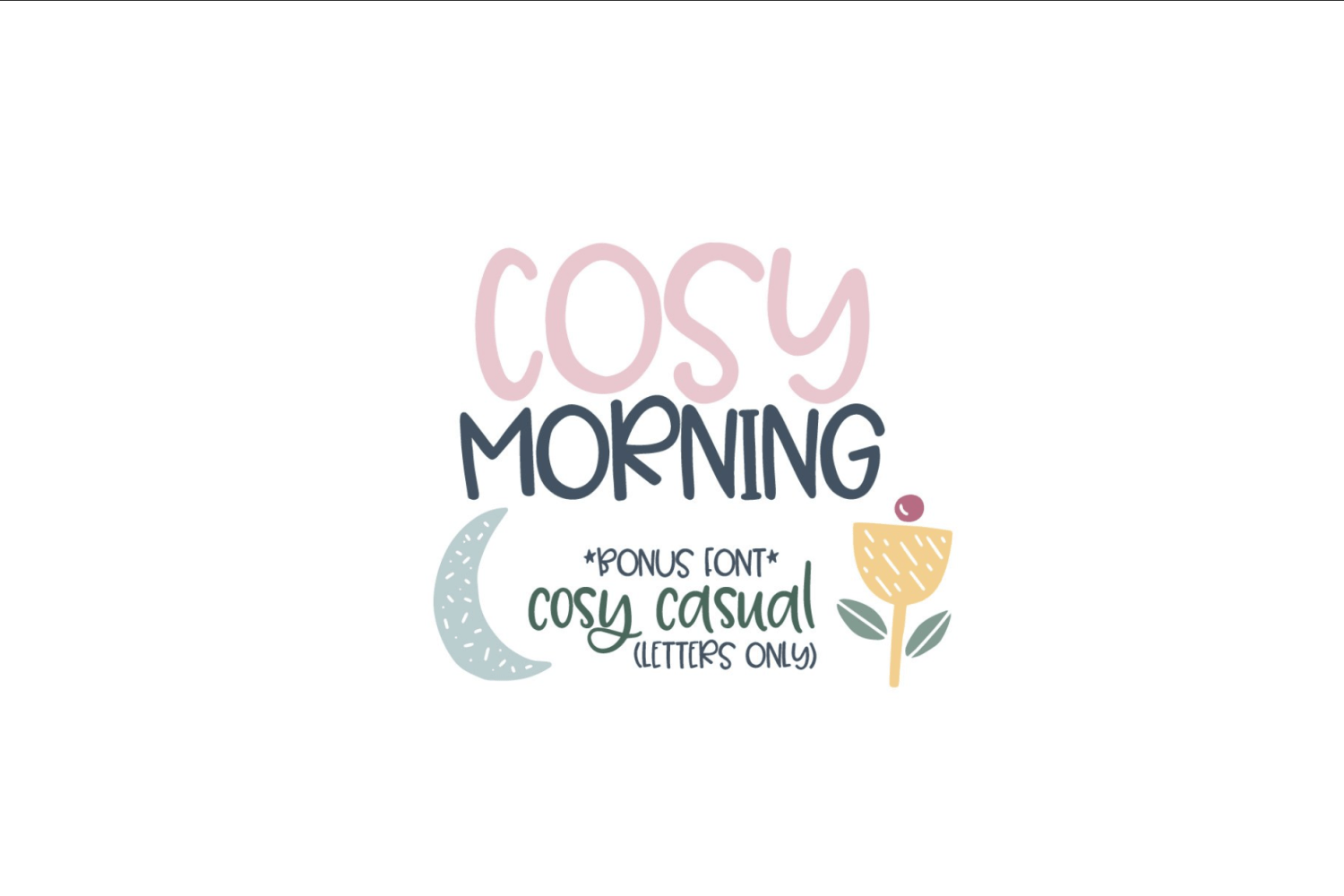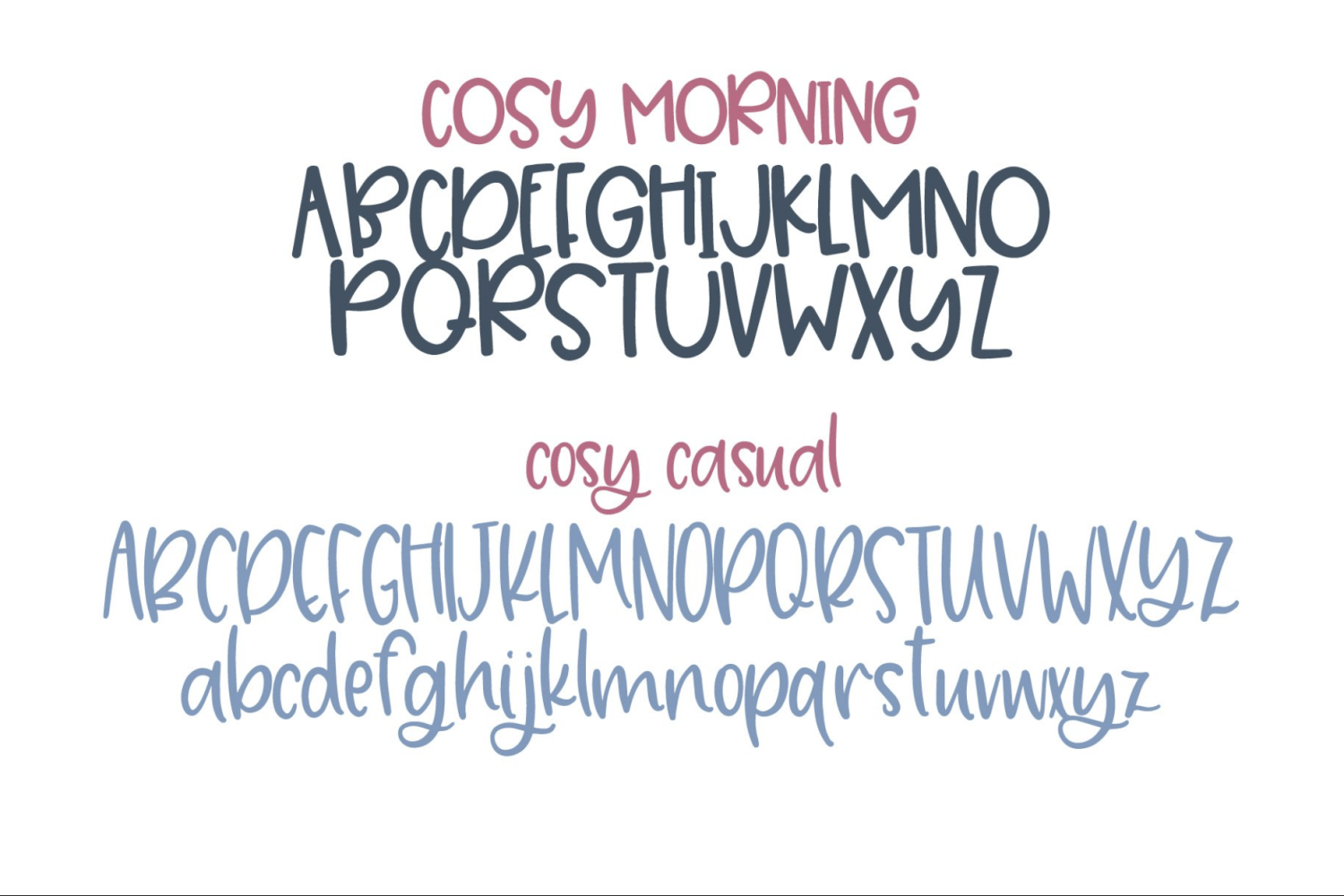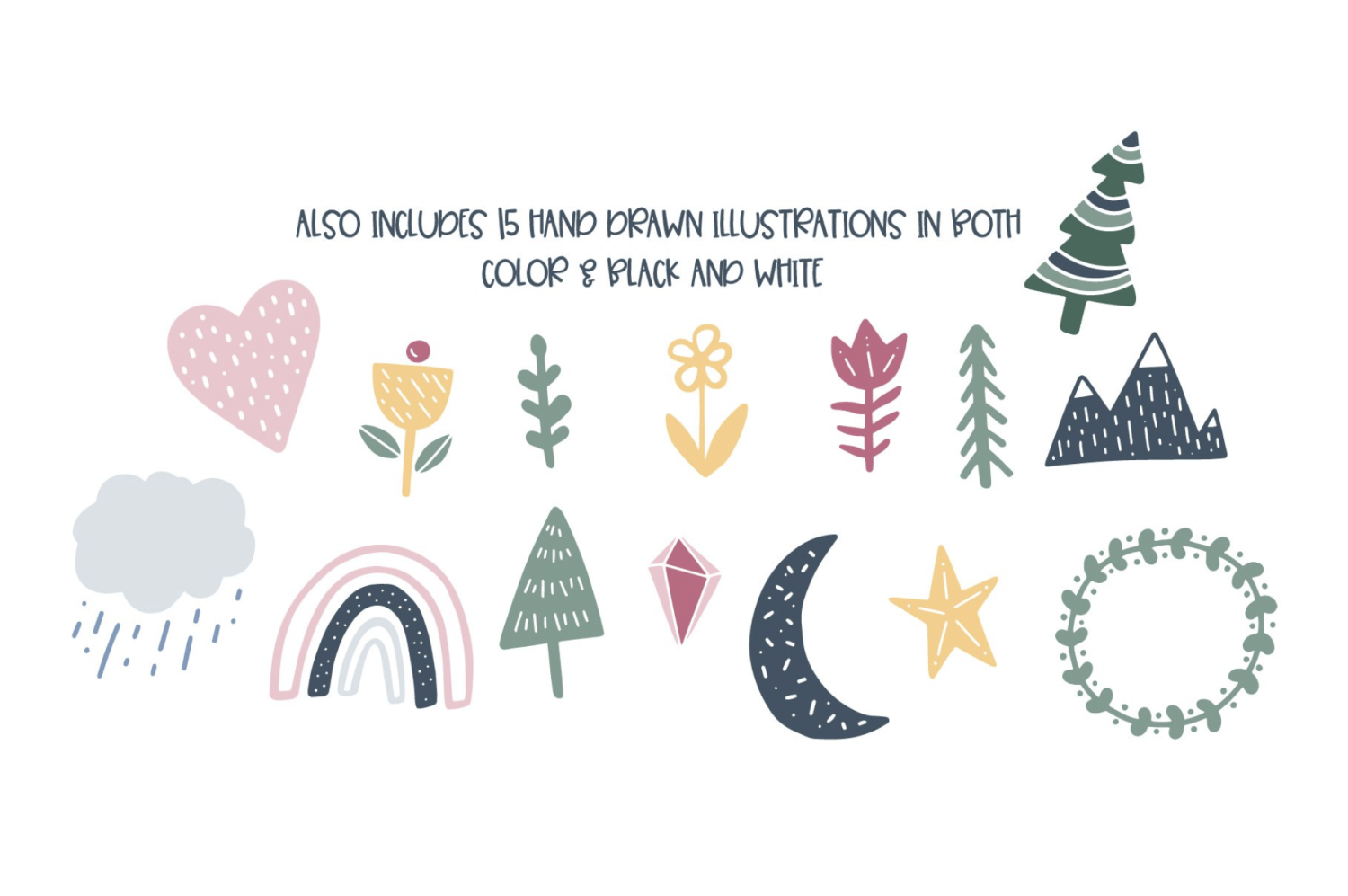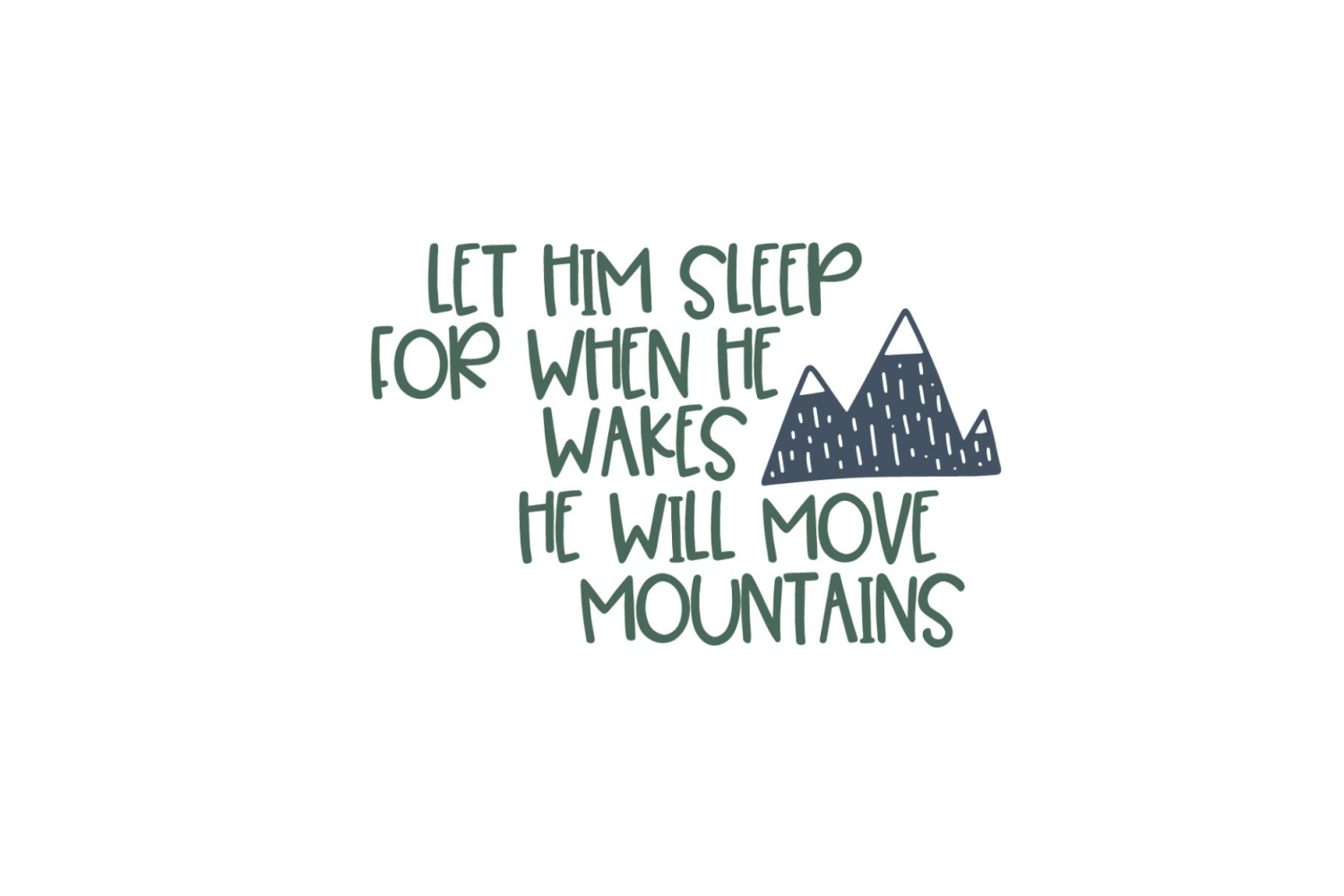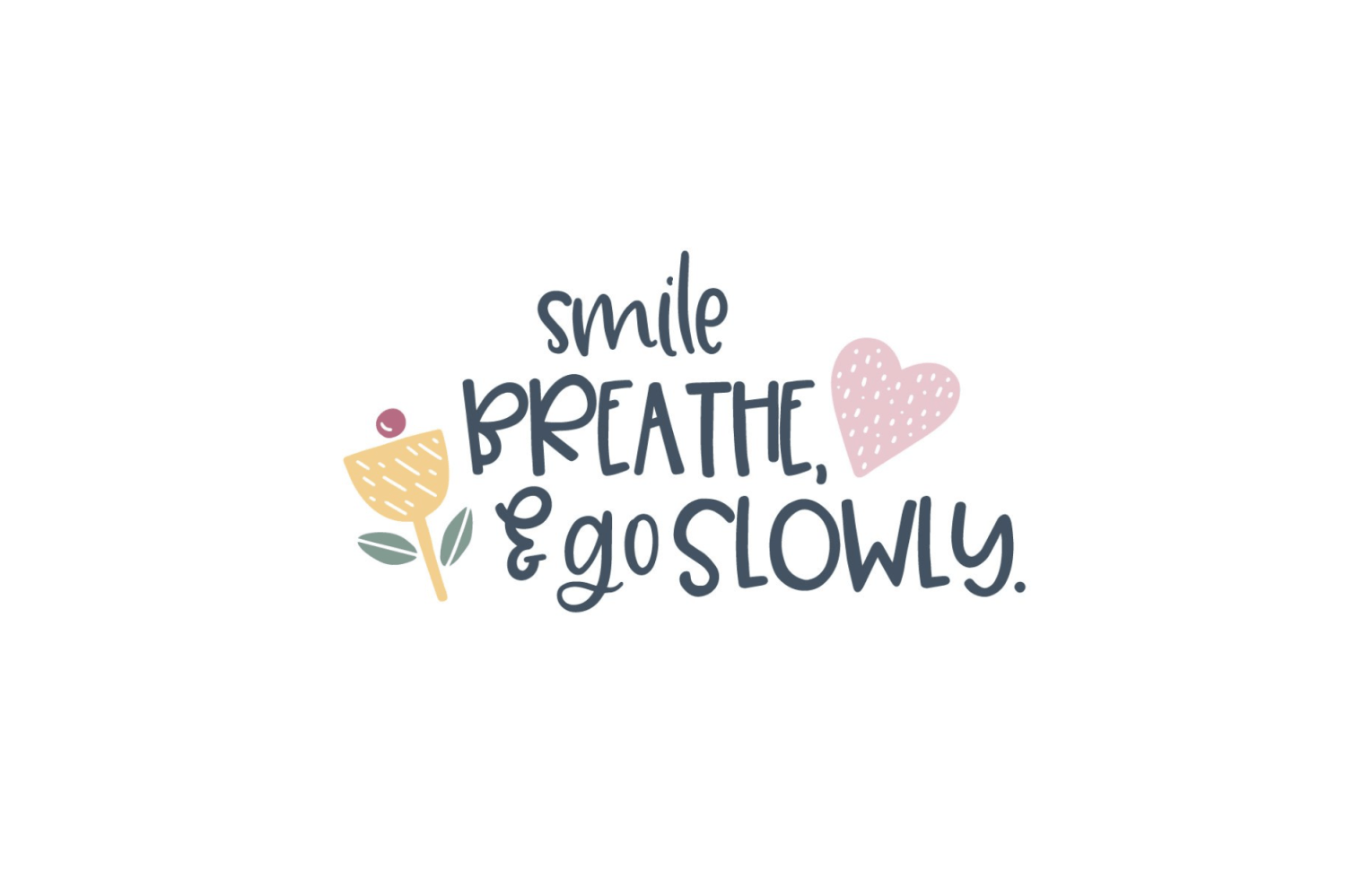
Cosy Morning Font Duo
The all caps Cosy Morning block font paired with the more casual Cosy Casual makes for a great duo! Also includes 15 original illustrations in both color and black and white. Cosy Morning is a full font. Cosy Casual is JUST upper and lowercase letters.